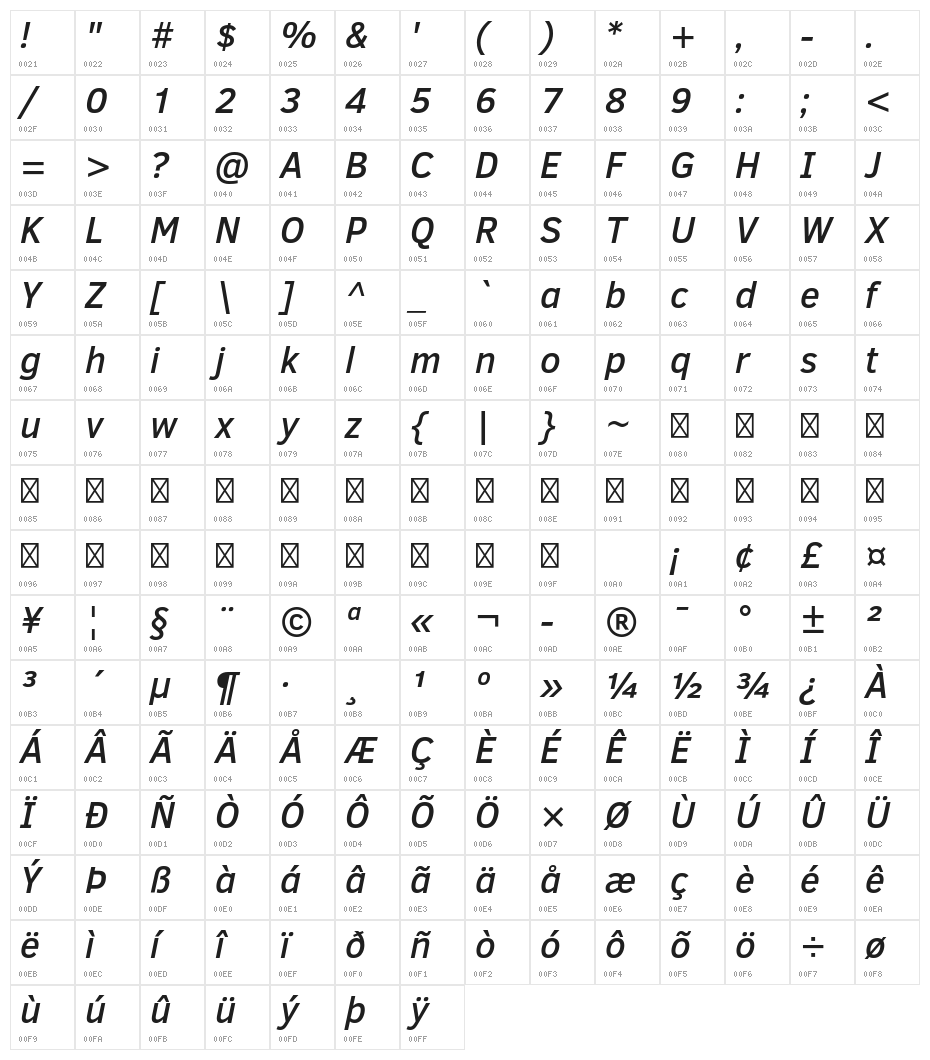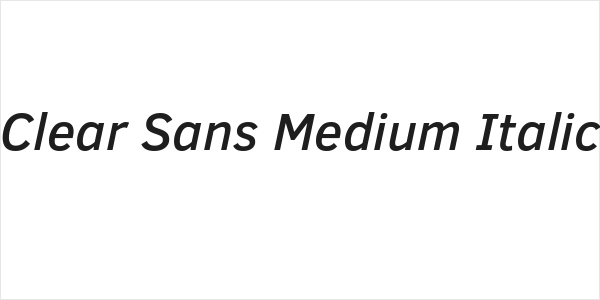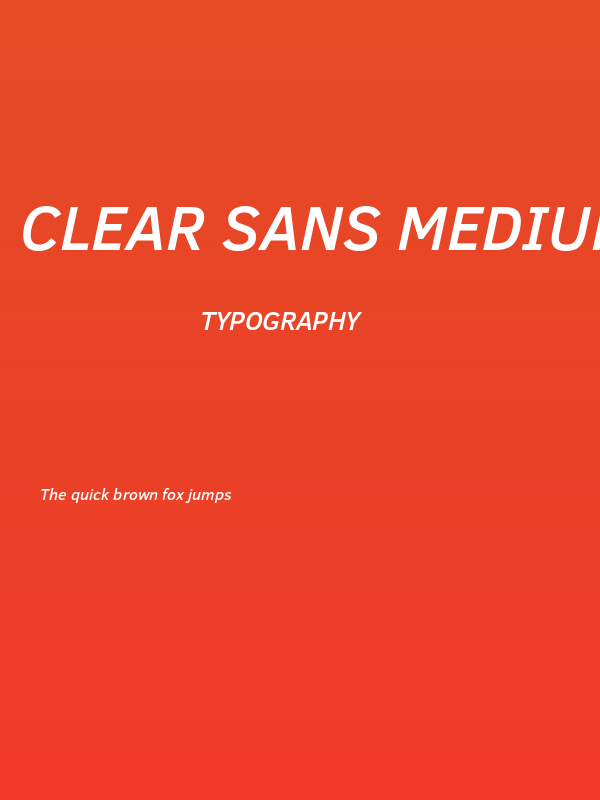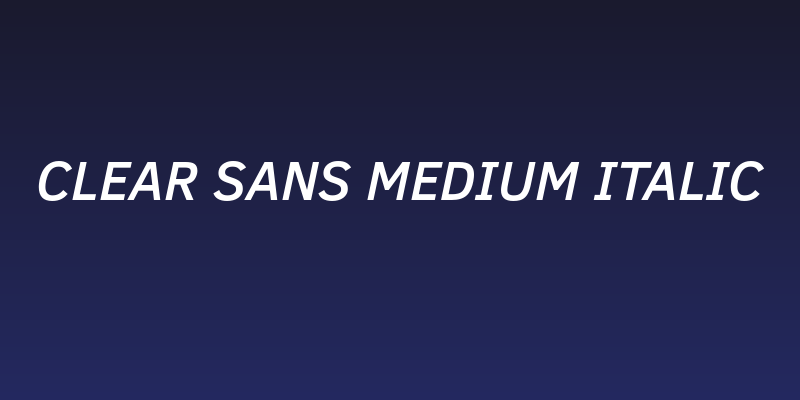
Clear Sans Medium Italic Font
Clear Sans Medium Italic Description
This font features a clean and modern sans-serif style with a medium weight and italic slant. The characters are well-proportioned and exhibit a slight forward tilt, enhancing readability and adding a dynamic feel. The strokes are consistent in thickness, providing a balanced appearance. The font maintains a uniform character width, ensuring a cohesive look across different text sizes. Its simplicity and clarity make it suitable for a wide range of applications, from digital interfaces to print media. The spacing between characters is normal, allowing for easy legibility without appearing cramped.
| Proposed Projects | Ideal for digital interfaces, branding, advertising, and editorial design. |